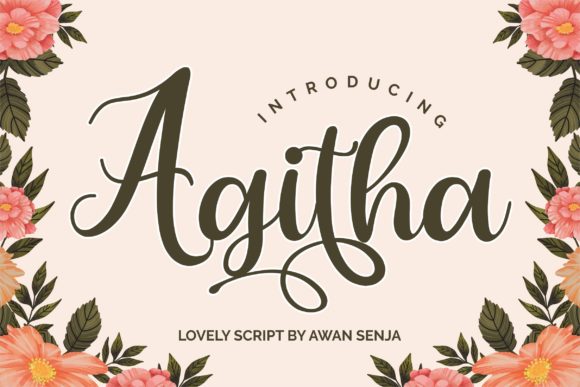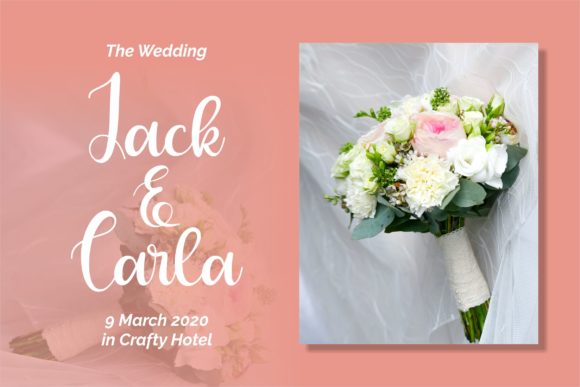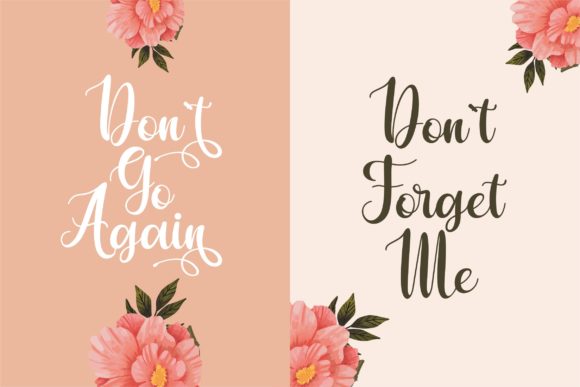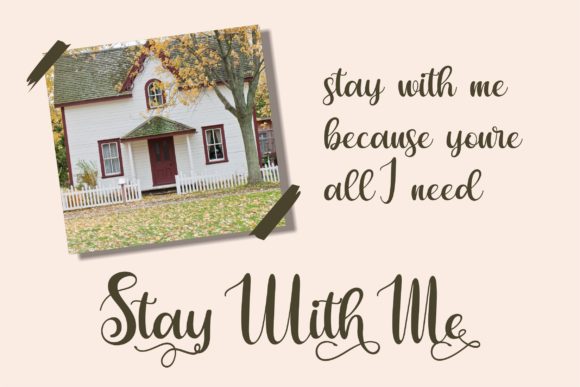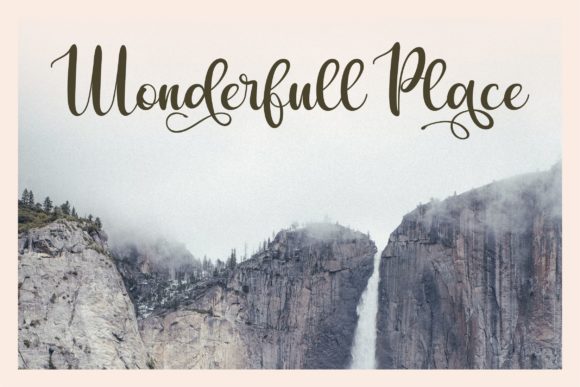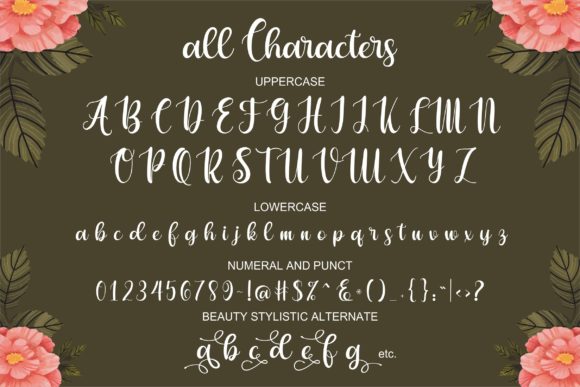
Agitha Font
About Agitha Font
Agitha is a lovely, round lettered handwritten font. This font is PUA encoded which means you can access all of the glyphs and swashes with ease! It features a varying baseline, smooth lines, gorgeous glyphs and stunning alternates.
Fall in love with its incredibly versatile style and use it to create gorgeous wedding invitations, beautiful stationary art, eye-catching social media posts, and much more!